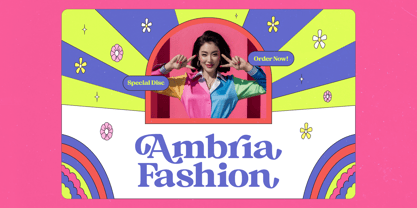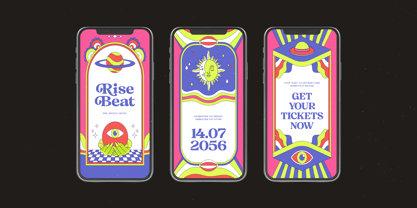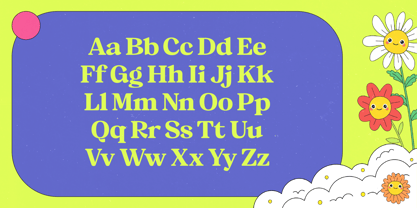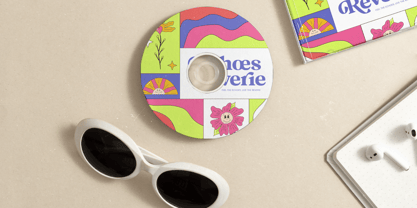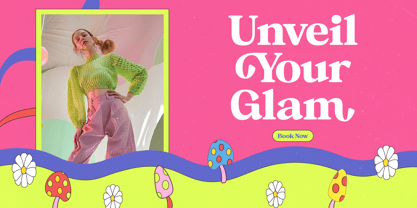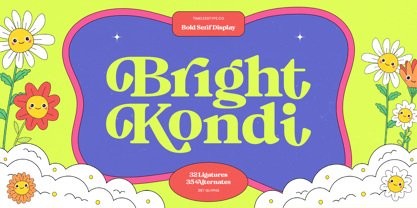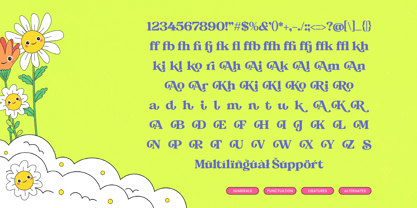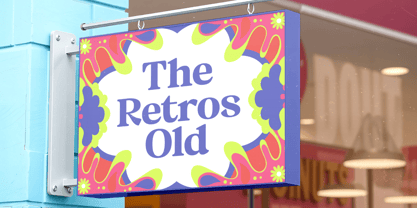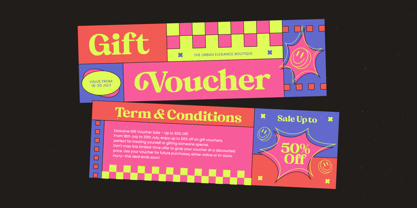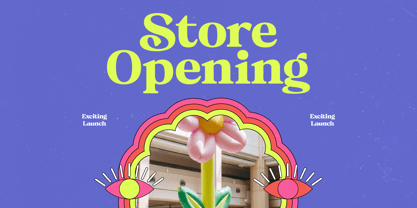
Bright Kondi
by Timelesstype Studio
The Bright Kondi Font Family was designed by Heru Utama Putra and published by Timelesstype Studio. Bright Kondi contains 2 styles and family package options. More about this family
Bright Kondi – Bold Serif Display Bright Kondi is a bold serif display font designed to stand out with confidence and charm. With its strong letterforms, smooth curves, and playful personality, this typeface delivers a vibrant retro-modern aesthetic that instantly grabs attention. Featuring 32 ligatures, 35 alternates, and 397 glyphs, Bright Kondi offers flexibility for creative typography while maintaining a cohesive and distinctive style. Its bold structure makes it perfect for impactful headlines, branding projects, packaging, posters, and eye-catching social media designs. Bright Kondi blends classic serif elegance with a fresh, contemporary twist — making it ideal for designers who want something expressive, memorable, and full of character.